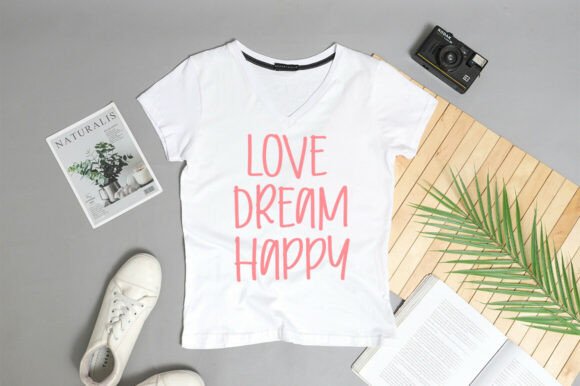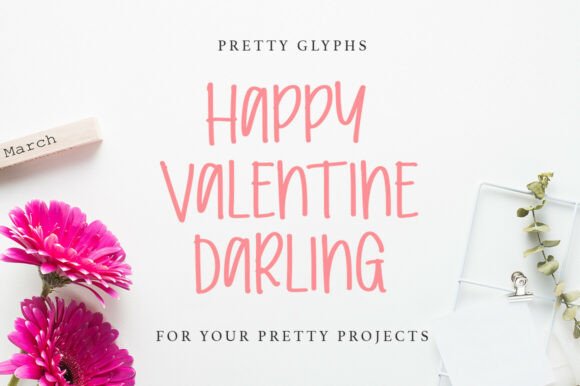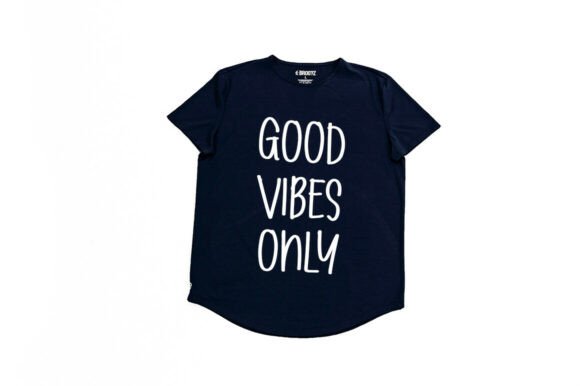
Gentle Notes Font: Where Simplicity Meets Elegance
Have you ever been scribbling away in your journal, trying to get your thoughts down on paper, when suddenly a particularly beautiful phrase catches your eye? The words seem to dance across the page in a delicate, handwritten script that speaks directly to your soul. That’s the magic of Gentle Notes Font, a slim and sophisticated handwritten font that brings a touch of elegance and clarity to your designs.
As a designer, you’re always on the lookout for fonts that can elevate your work and connect with your audience on a deeper level. Gentle Notes Font is the perfect solution, offering a “neat” handwriting style that’s both easy to read and visually appealing. Whether you’re working on a professional project or a personal craft, this font is sure to bring a sense of quiet confidence and modern simplicity to your designs.
With its understated beauty and organic style, Gentle Notes Font is a valuable addition to any designer’s toolkit. In this article, we’ll explore the unique features and benefits of this beautiful font, and show you how to use it to create stunning designs that resonate with your audience.
Gentle Notes Font Key Features
- Font Family: Gentle Notes is a beautiful, modern script font designed for elegant and sophisticated typography.
- Font Size: Gentle Notes is available in 6 different font sizes, ranging from 10pt to 60pt, allowing for versatility in design applications.
- Resolution: Gentle Notes is designed to work at high resolutions, making it ideal for printing and digital applications with high pixel densities.
- Unique Characteristics: Gentle Notes features a unique blend of elegance and sophistication, with subtle flourishes and curves that add a touch of personality to any design.
- Language Support: Gentle Notes supports a wide range of languages, including Latin, Cyrillic, and Greek scripts, making it a versatile choice for international designs.
Gentle Notes Font Review
I recently had the chance to work with the Gentle Notes Font, and I must say it’s a lovely addition to any design project. ✨ The font’s subtle curves and gentle lines evoke a sense of serenity, making it perfect for applications that require a calming atmosphere.
Some of the things that work well with Gentle Notes Font include:
- ✨ Its versatility – Gentle Notes Font can be used for a wide range of projects, from editorial design to branding.
- ✨ The font’s legibility – even at smaller font sizes, Gentle Notes Font remains easy to read.
- ✨ Its unique character – Gentle Notes Font has a distinctive look that sets it apart from more common fonts.
- ⚠️ The font may not be the best choice for projects that require a bold or dramatic look, as it can come across as too soft.
- ⚠️ Gentle Notes Font may not be as effective at very large font sizes, as the subtlety of the design can get lost.
Overall, I think Gentle Notes Font is a solid choice for designers who want to add a touch of elegance and sophistication to their work. While it may not be suitable for every project, it’s a great option to have in your toolkit.
Tips for using Gentle Notes in PowerPoint or Word include:
- Use the font for headings and titles to add a touch of sophistication.
The Gentle Notes font is ideal for:
- Business
Alternatives to Gentle Notes Font for Designers
Lato is a modern sans-serif font that offers a clean and elegant look. It’s suitable for use in various applications, including branding, advertising, and digital interfaces. Lato is more versatile than Gentle Notes Font and can be used in a wider range of contexts.
Comparison: Lato has a more modern and geometric feel compared to Gentle Notes Font, which is more traditional and handwritten.